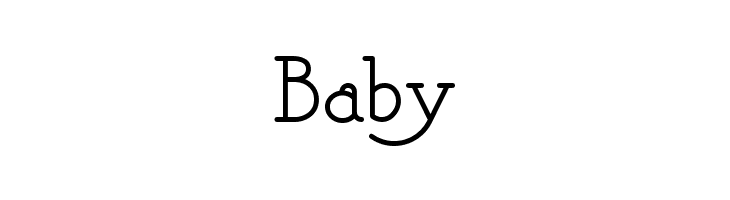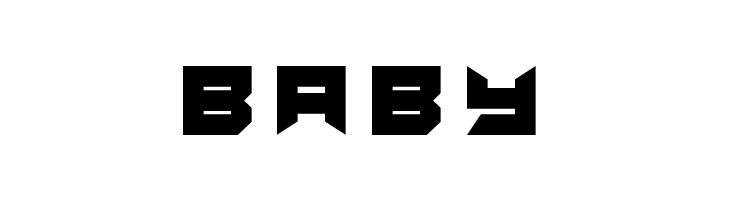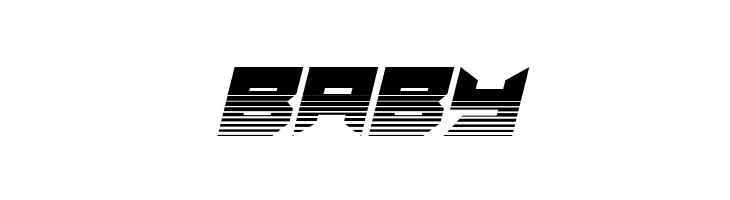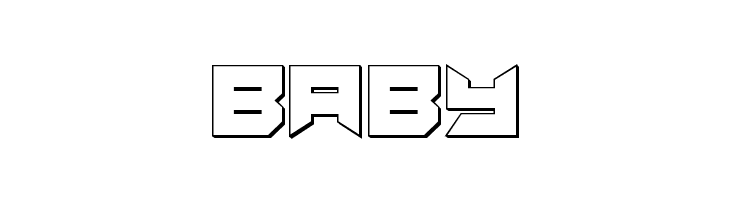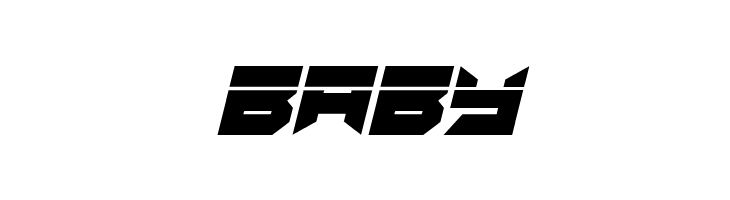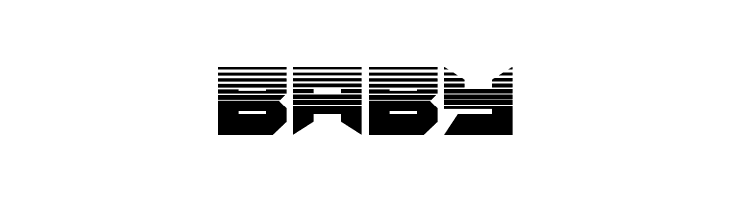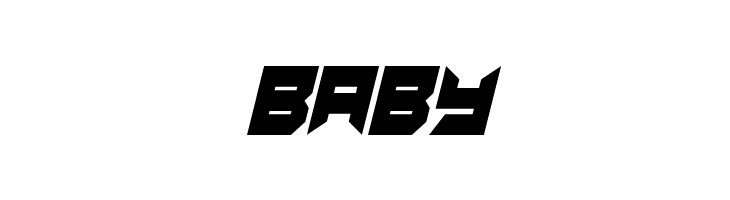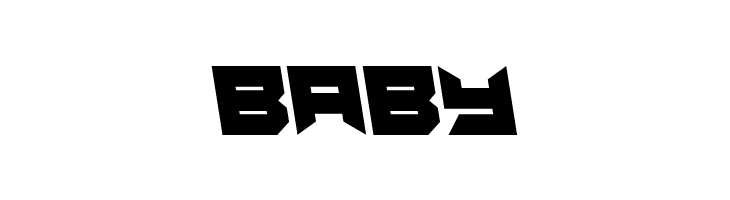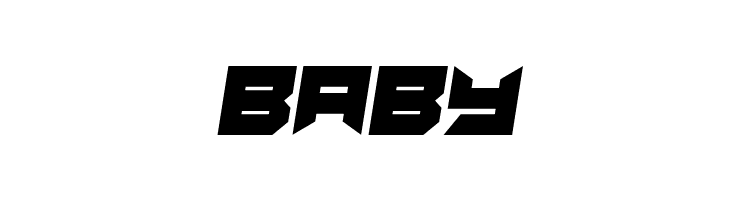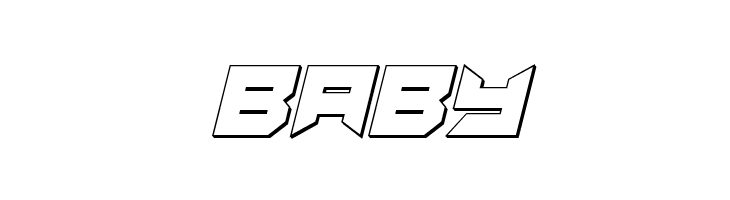
A bold, cursive script font with a flowing, handwritten style.
A playful, casual handwritten font with flowing strokes and a whimsical touch.
A playful, vintage-inspired font with medium contrast and whimsical lowercase letters.
A playful, handwritten font with smooth curves and a casual style.
A bold, expressive handwritten font with dynamic, fluid strokes and a brush-like texture.
A decorative script font with floral embellishments and elegant, flowing letterforms.
A bold, playful script font with a hand-drawn, energetic style.
A bold, geometric font with a modern and futuristic design.
A modern vintage font with geometric shapes and elegant serifs.
An elegant script font with high contrast and flowing cursive style.
A bold, geometric 3D font with sharp, angular lines and a futuristic style.
A bold, angular 3D italic font with a futuristic and dynamic style.
A bold, geometric, and condensed font with a futuristic and edgy design.
A bold, angular, and italic font with a futuristic and condensed style.
A bold, angular, and expanded italic font with a futuristic style.
A bold, geometric font with a gradient effect and futuristic design.
A dynamic, futuristic font with gradient effects and italicized, angular lines.
A bold, futuristic font with a halftone effect and geometric design.
A bold, italicized font with a futuristic halftone effect and sharp geometric angles.
A bold, angular, and italicized font with a futuristic design.
A bold, geometric font with a futuristic and modern aesthetic.
A bold, angular font with a futuristic and dynamic design.
A bold, angular font with a futuristic and dynamic geometric style.
A bold, angular font with a dynamic, semi-italic style.
A bold, angular font with a futuristic and dynamic design.
A bold, angular, and italicized font with a futuristic and edgy design.
A bold, angular font with a futuristic and geometric design.
A bold, angular, and italicized font with a dynamic, modern style.
A bold, futuristic font with a two-tone, striped design.
A bold, futuristic italic font with a two-tone effect and sharp geometric shapes.
A playful, handwritten font with smooth, flowing lines and rounded edges.
A bold, gothic blackletter font with intricate, ornate details.
A bold and intricate blackletter font with a medieval gothic style.